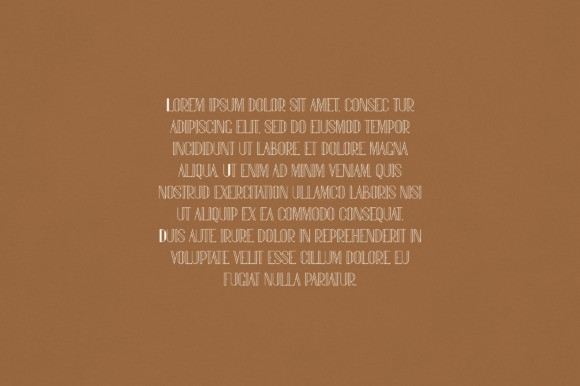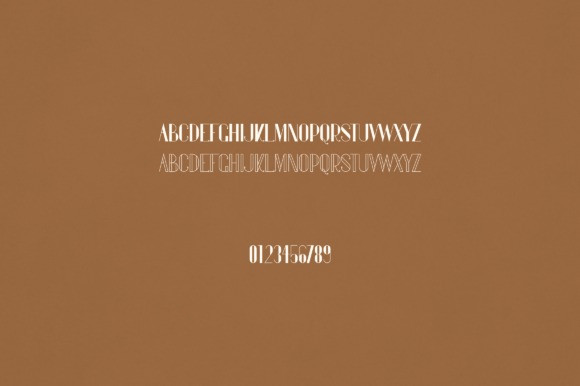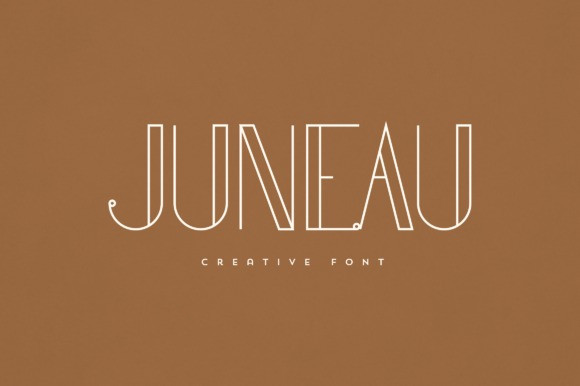
Juneau Font
Juneau Font is an elegant and versatile serif font that will make your typography truly unique! It will enchant every logo, branding, headline, or plain text!